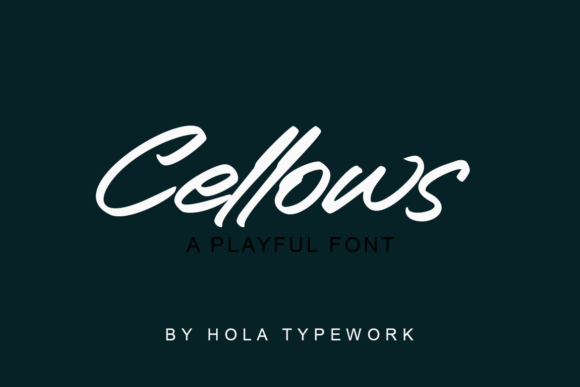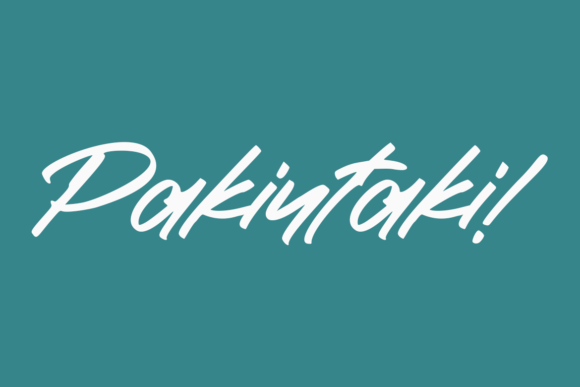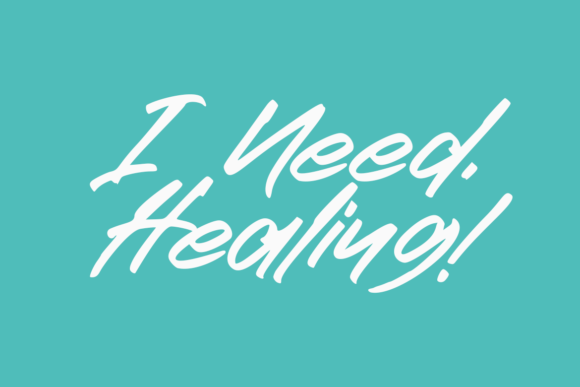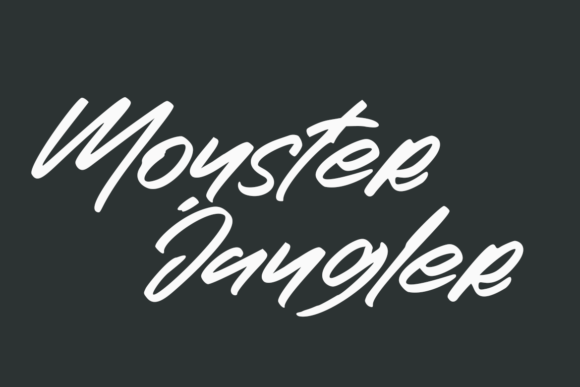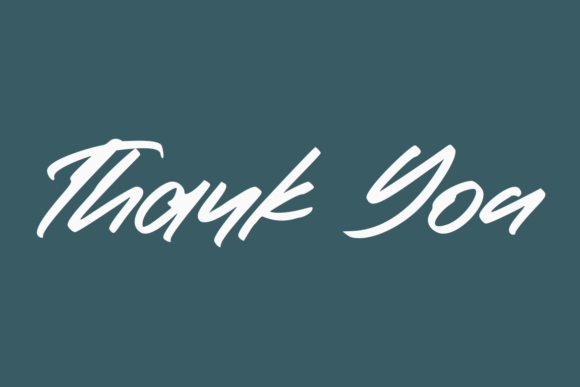
Cellows Font
About Cellows Font
Cellows is neat, brushed handwritten font. It draws inspiration from nature and particularly the woods, and because of its neat letters, it will help you create outstanding designs.